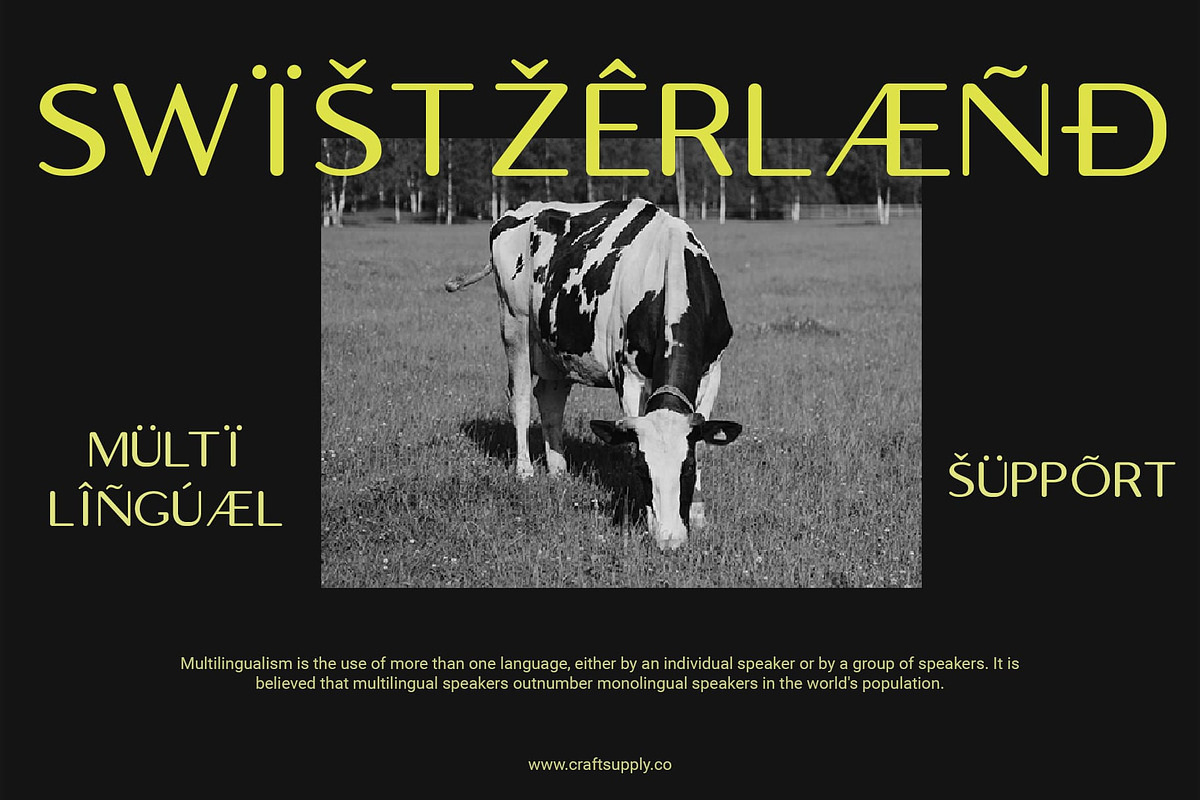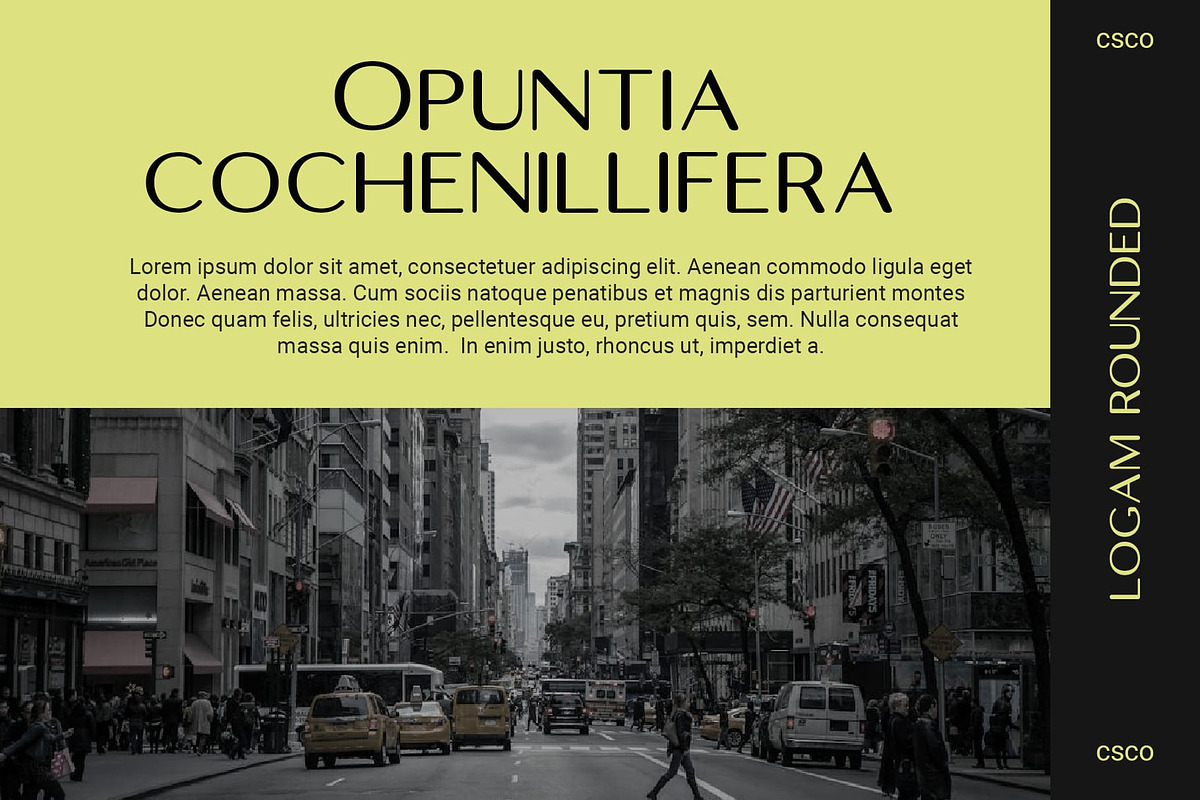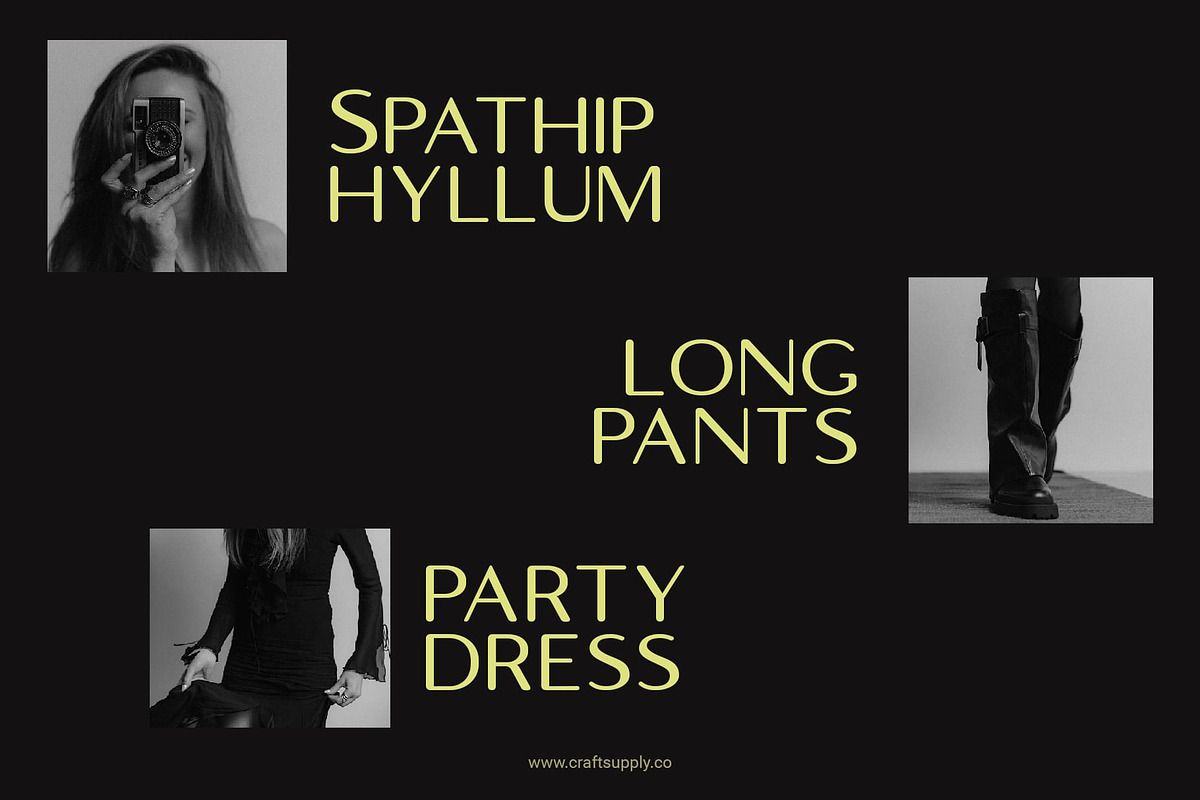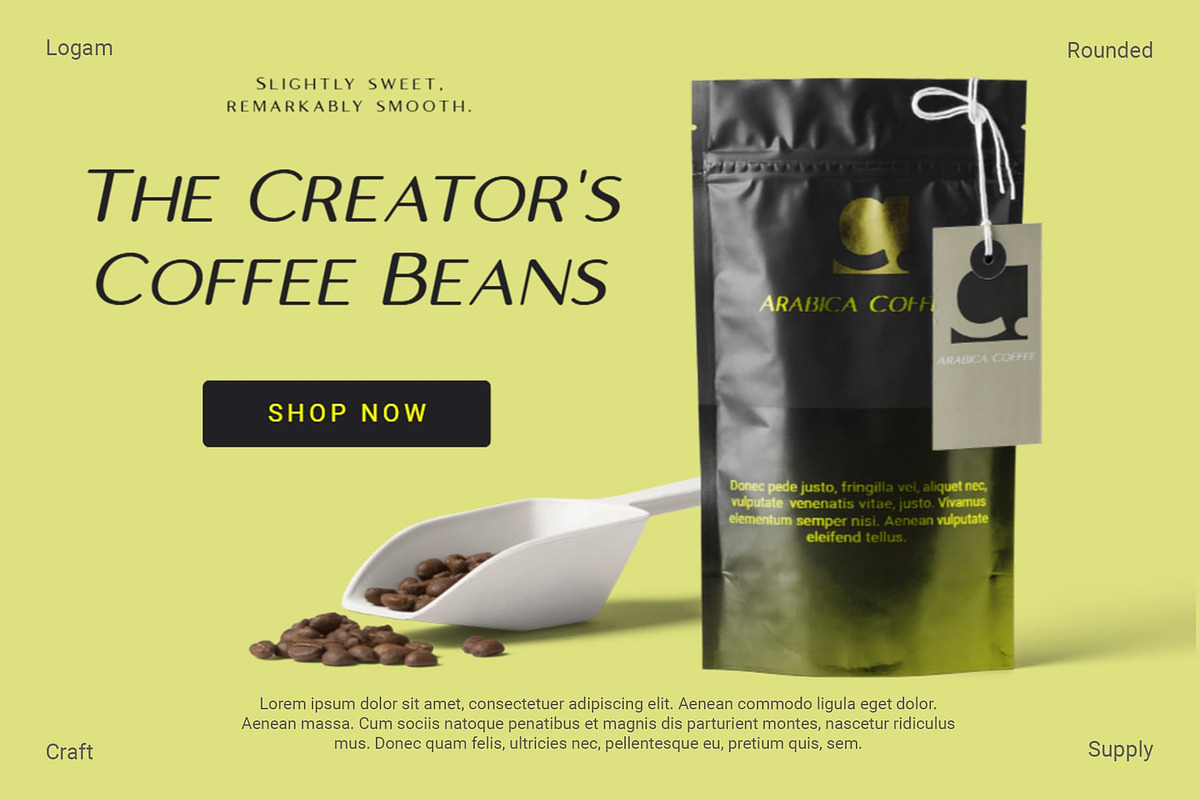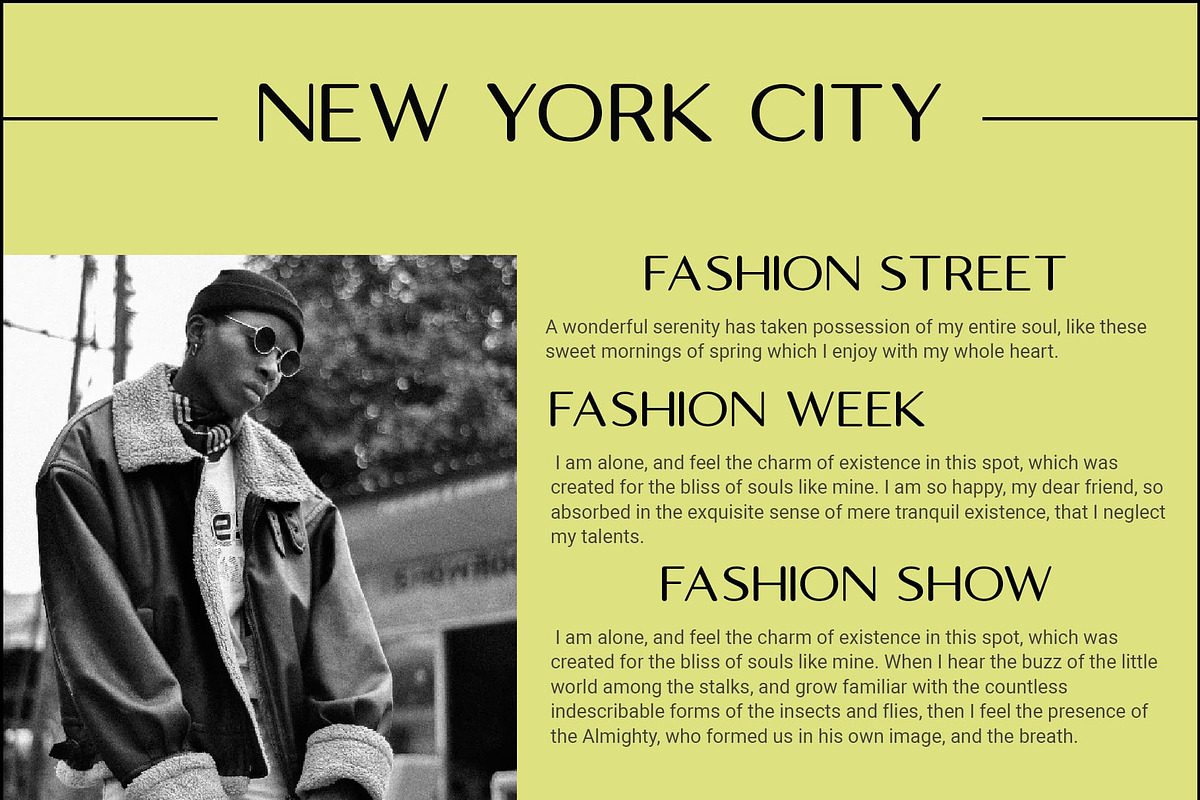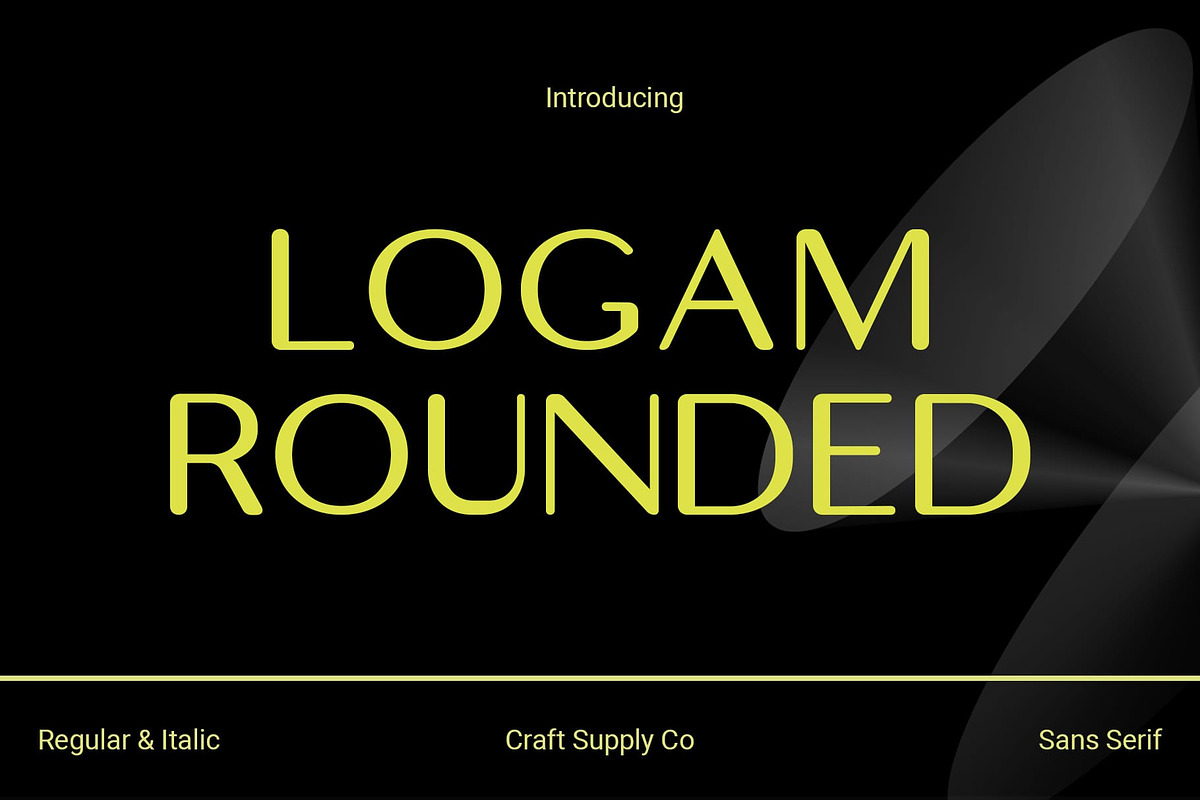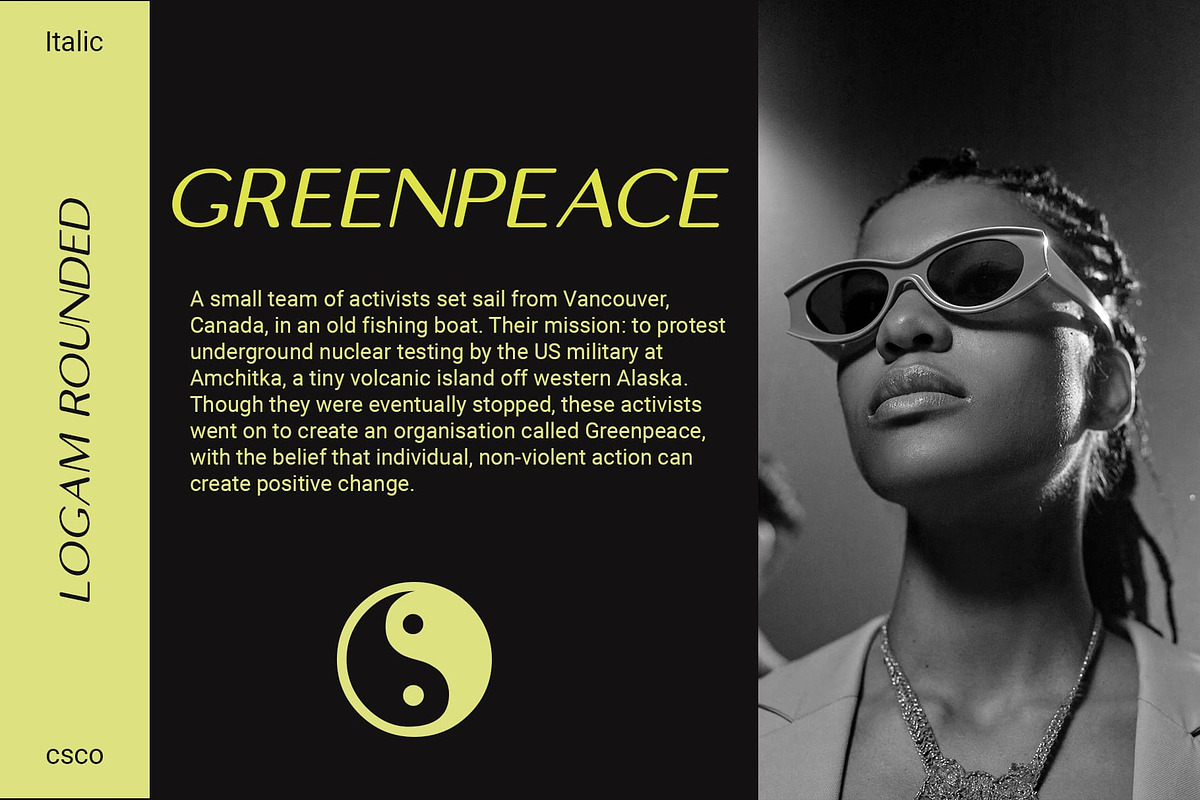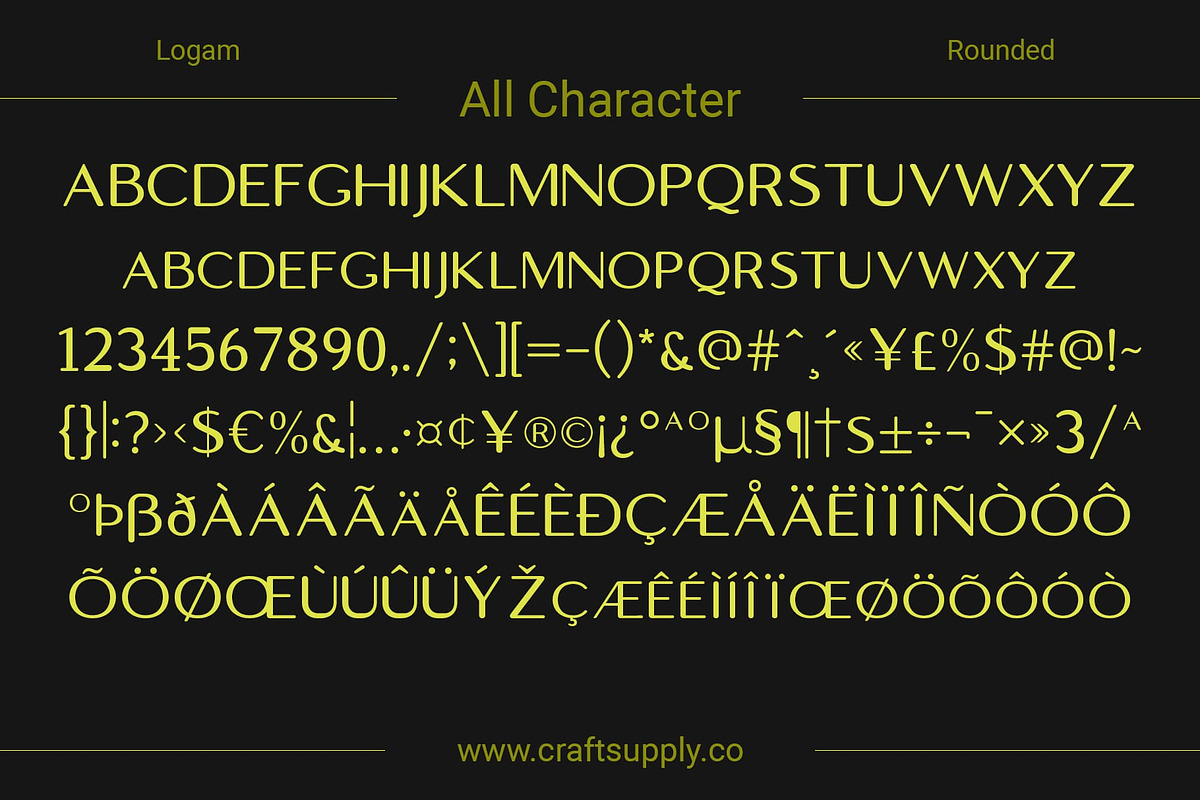
Logam Rounded
Logam Rounded: A High-Contrast Sans Serif
Sleek and Striking Logam Rounded presents a sleek and striking sans serif typeface, distinguished by its high contrast and rounded stem terminals.
Contemporary Elegance This font exudes a sense of contemporary elegance, seamlessly blending the sharp contrasts of its letterforms with the soft, rounded edges of its terminals. This unique combination creates a balanced and modern aesthetic that is both visually captivating and stylistically versatile.
Versatile Application Ideal for a wide range of applications, This font adds flair to branding, editorial design, and web projects, thanks to its unique design elements.
Eye-Catching Appeal With its high contrast and rounded terminals, This font catches the eye and leaves a lasting impression, ensuring your message stands out effectively.
Modern Sophistication This font embodies modern sophistication with its sleek design, high contrast, and rounded stem terminals. Versatile and eye-catching, it elevates any design project with contemporary elegance and visual appeal.